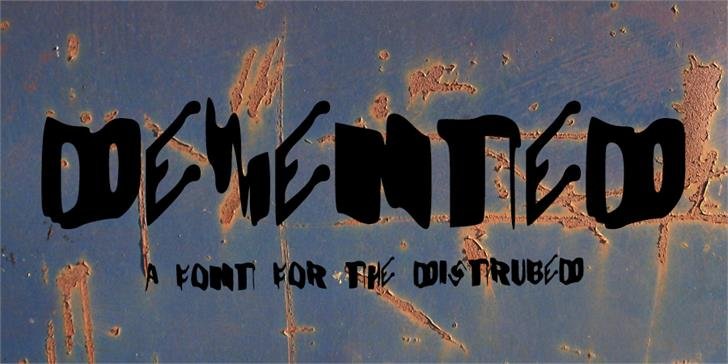
The Birth of a Messy Masterpiece
Who among us hasn’t had a brilliant idea after a night out with friends? Maybe it was a song that sparked a new melody, a conversation that led to a fresh perspective, or a glimpse of a stranger’s art that ignited a creative fire. For me, it was a particularly rowdy evening that inspired the creation of the Demented Font.
This unique font, born from the twisted love of Franklin Gothic, was designed to capture the essence of a night well-spent. By adding my own special touches to this classic font, I aimed to create a visual representation of the chaos and beauty that can emerge when creativity meets a little bit of madness.
Demented Font Key Features
- Unique Characteristics: Demented Font features a distressed, hand-drawn design with irregular shapes and rough textures, giving it a unique, edgy look.
- Kerning and Ligatures: Demented Font includes advanced kerning and ligature pairs to ensure smooth text rendering and improved readability.
Demented Font Review
When I first laid eyes on “Demented Font”, I was intrigued by its quirky charm ✨. The font’s irregular shapes and distorted letterforms immediately caught my attention. It’s clear that the designer had a lot of fun experimenting with unconventional typography.
The font’s unique personality makes it a great choice for adding a touch of edginess to designs that need a bit of attitude. It’s particularly well-suited for punk rock, horror, or sci-fi themes. The font’s irregularities also make it a great choice for creating a sense of unease or tension in designs.
- ✨ Unique personality that adds a touch of edginess to designs
- ✨ Great for punk rock, horror, or sci-fi themes
- ✨ Can create a sense of unease or tension in designs
- ⚠️ Limited legibility in smaller font sizes
- ⚠️ May not be suitable for body text due to its irregular shape
- ⚠️ Can be overwhelming if used in excess
Overall, I think “Demented Font” is a great choice for designers who want to add a touch of eccentricity to their designs. While it may not be suitable for all projects, it’s definitely a unique and memorable font that’s sure to make a statement.
The Demented Font is ideal for:
- Adding a touch of whimsy to your designs
- Creating eye-catching headings and titles
- Adding a sense of playfulness to your brand’s visual identity
Tips for Getting the Most Out of the Demented Font
To get the most out of the Demented Font, try:
- Mixing it with other bold and playful fonts for a unique look
- Using it for headings and titles, but reserving it for special occasions
- Use the Demented Font for the title of the invitation, such as “Beware of the Haunted House”.
- Add a spooky background image or texture to enhance the atmosphere.
- Use a bold, gothic-style frame to surround the invitation text.
- Add a few cobwebs or spider webs to create a creepy ambiance.
- Use the Demented Font for the album title, such as “Chaos Reigns”.
- Add a distressed, gritty texture to the background to enhance the grunge look.
- Use a bold, red color scheme to create a high-energy look.
- Add a few torn or frayed edges to the album cover to enhance the grunge aesthetic.